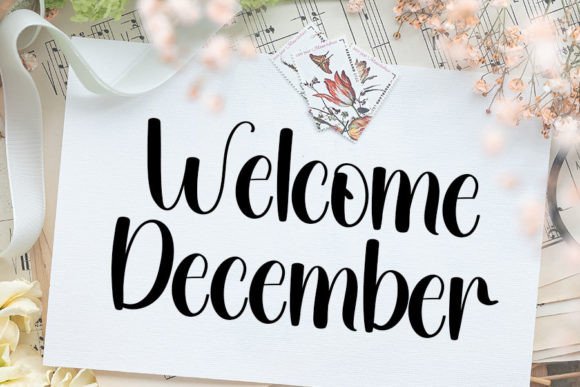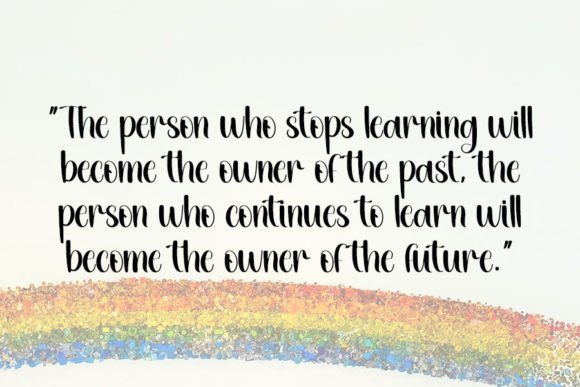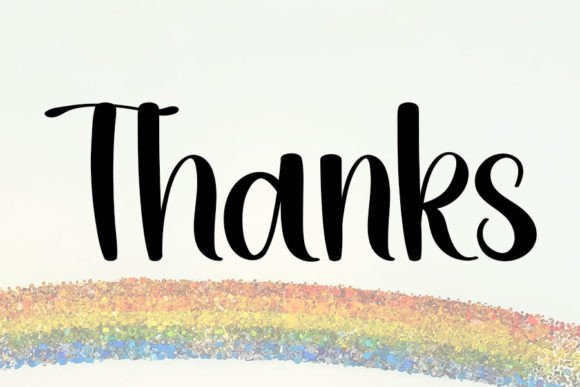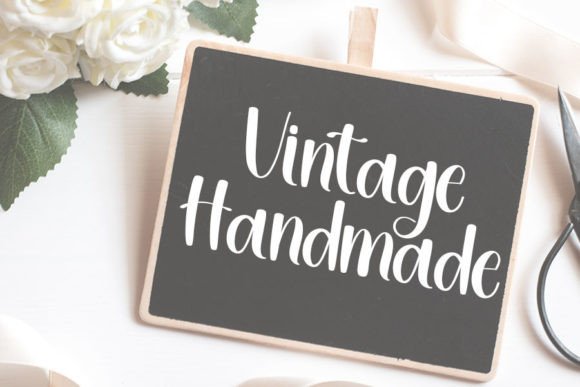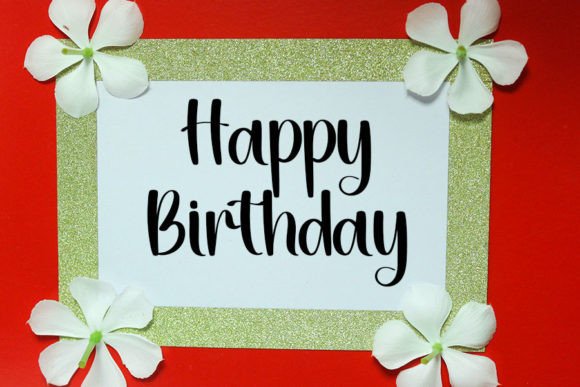
Rainbow Font
About Rainbow Font
RainbowFont is a lively and charming handwritten typeface that adds a burst of personality to every project. Whether you’re designing for digital platforms or print, this font brings a cheerful tone that immediately grabs attention.
Because of its warm and friendly style, RainbowFont works exceptionally well in both personal and commercial settings. You can use it for anything from branding and packaging to social media graphics or invitation designs.
Why Choose Rainbow Font?
There are several reasons why RainbowFont should be your next design asset:
• Versatile and easy to read – RainbowFont maintains excellent legibility, even in smaller sizes.
• Bright and friendly vibe – It makes your designs feel welcoming and fun.
• Perfect for multiple projects – Whether you’re crafting or creating digital products, this font adapts well.
Furthermore, its smooth curves and playful strokes make it an ideal match for both minimalist and colorful themes.
Great Use Cases for Rainbow Font
You can use RainbowFont in various creative projects, such as:
• Personalized greeting cards and holiday messages
• Instagram posts, reels, or stories with quotes
• Branding assets and product packaging
• Posters, planners, or children’s learning materials
• DIY crafts, printable downloads, or home decor
Since the font is designed with a lighthearted feel, it blends especially well with other handwritten or sans-serif fonts for more dynamic layouts.